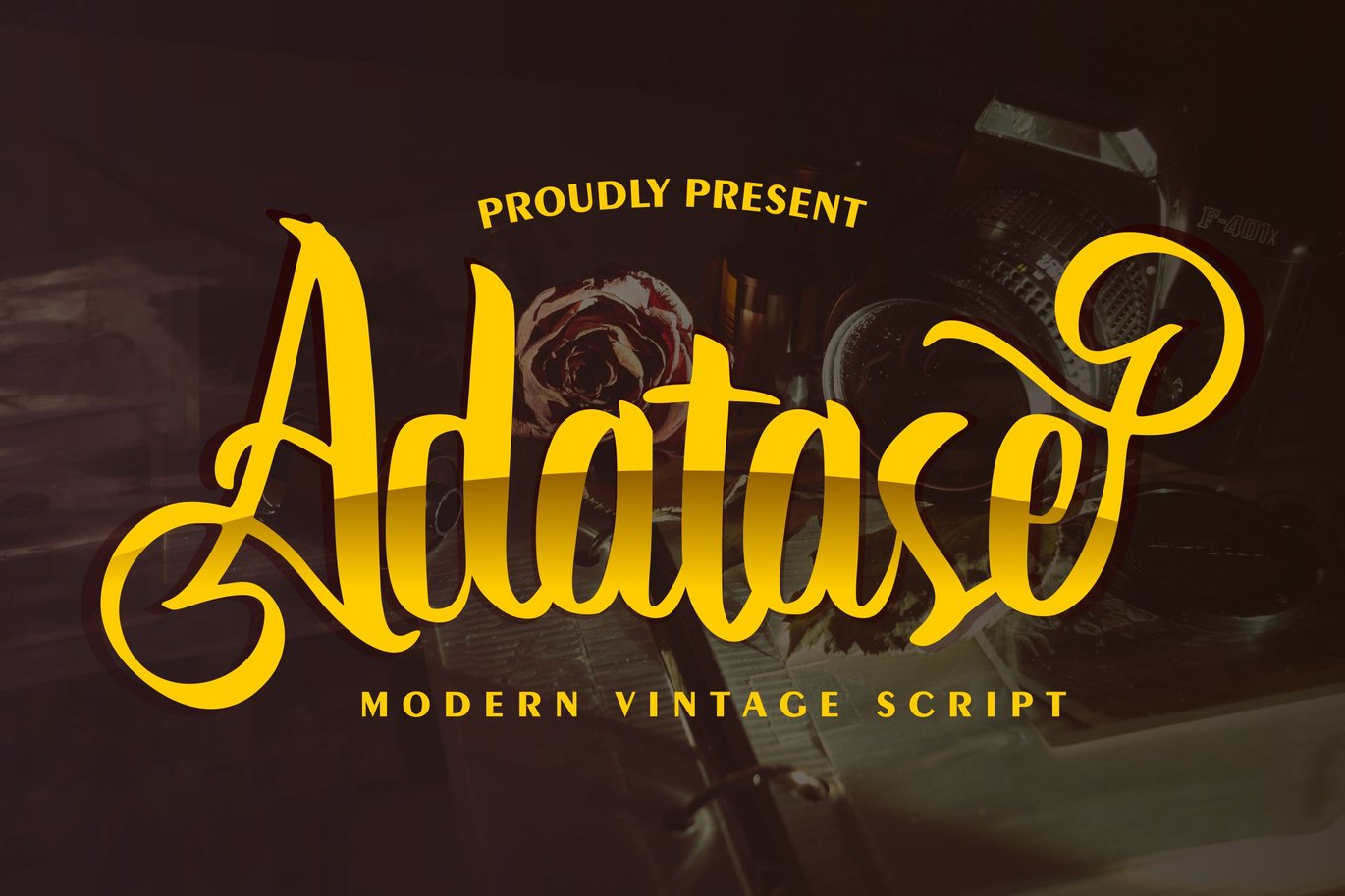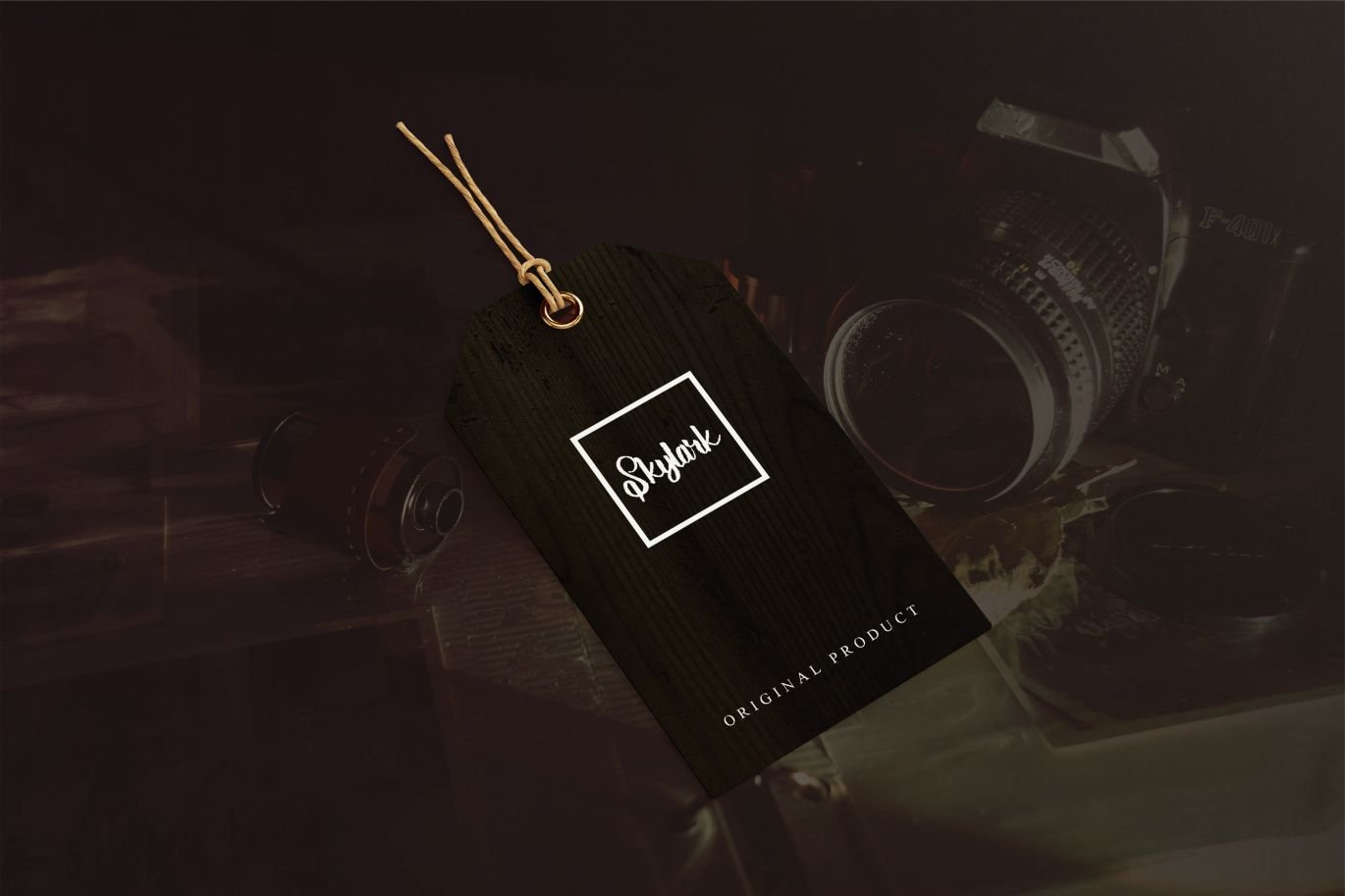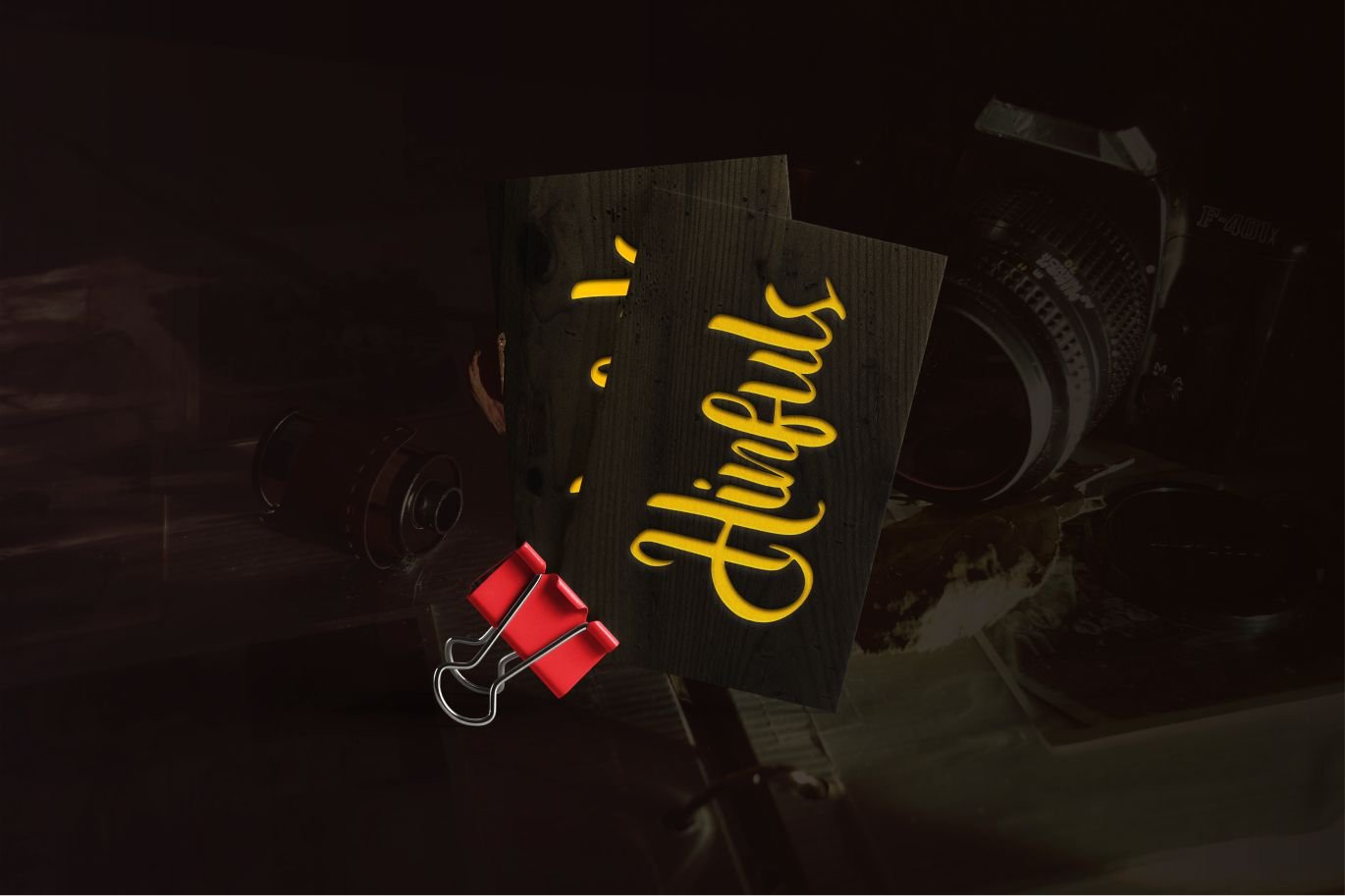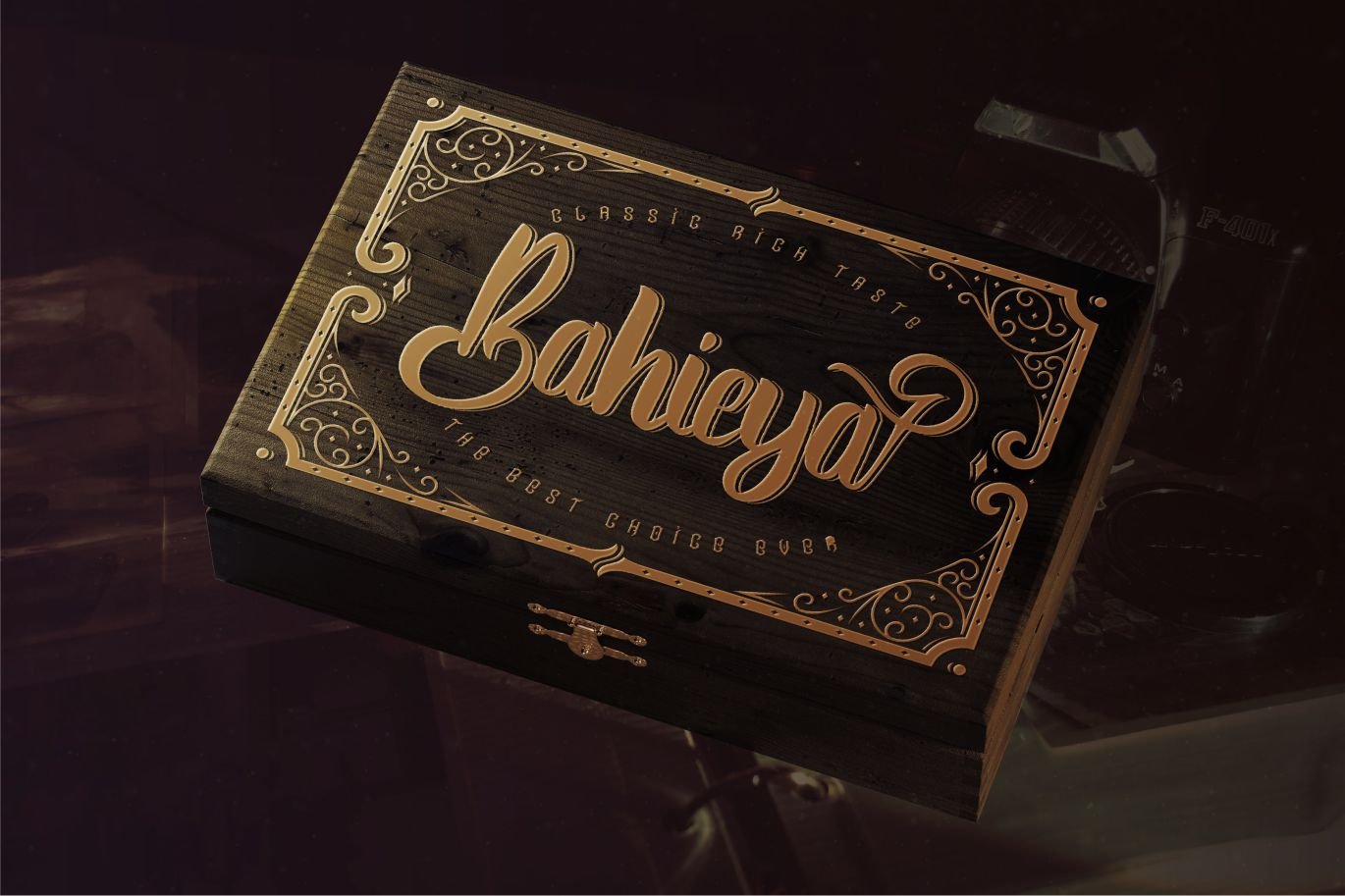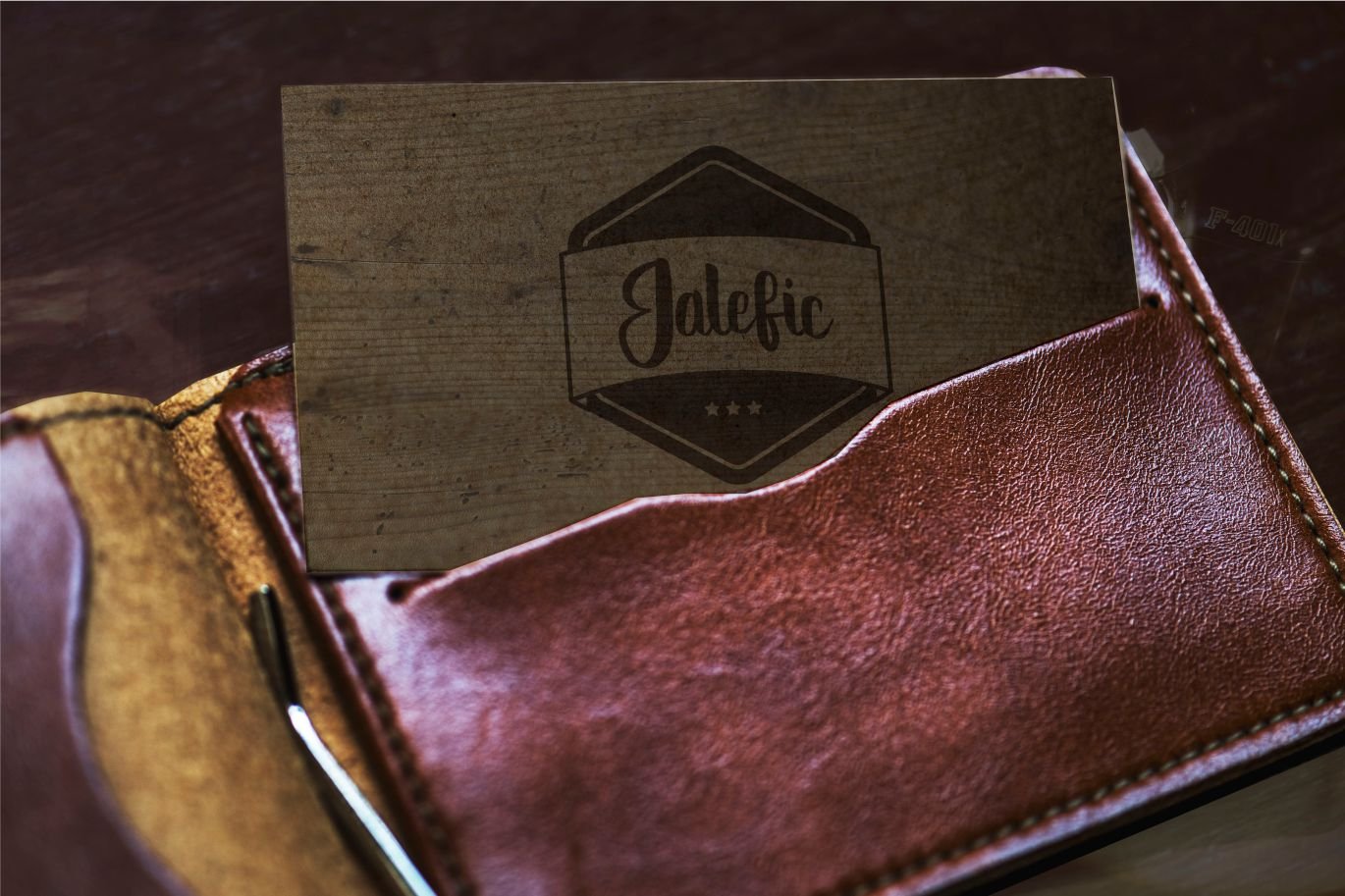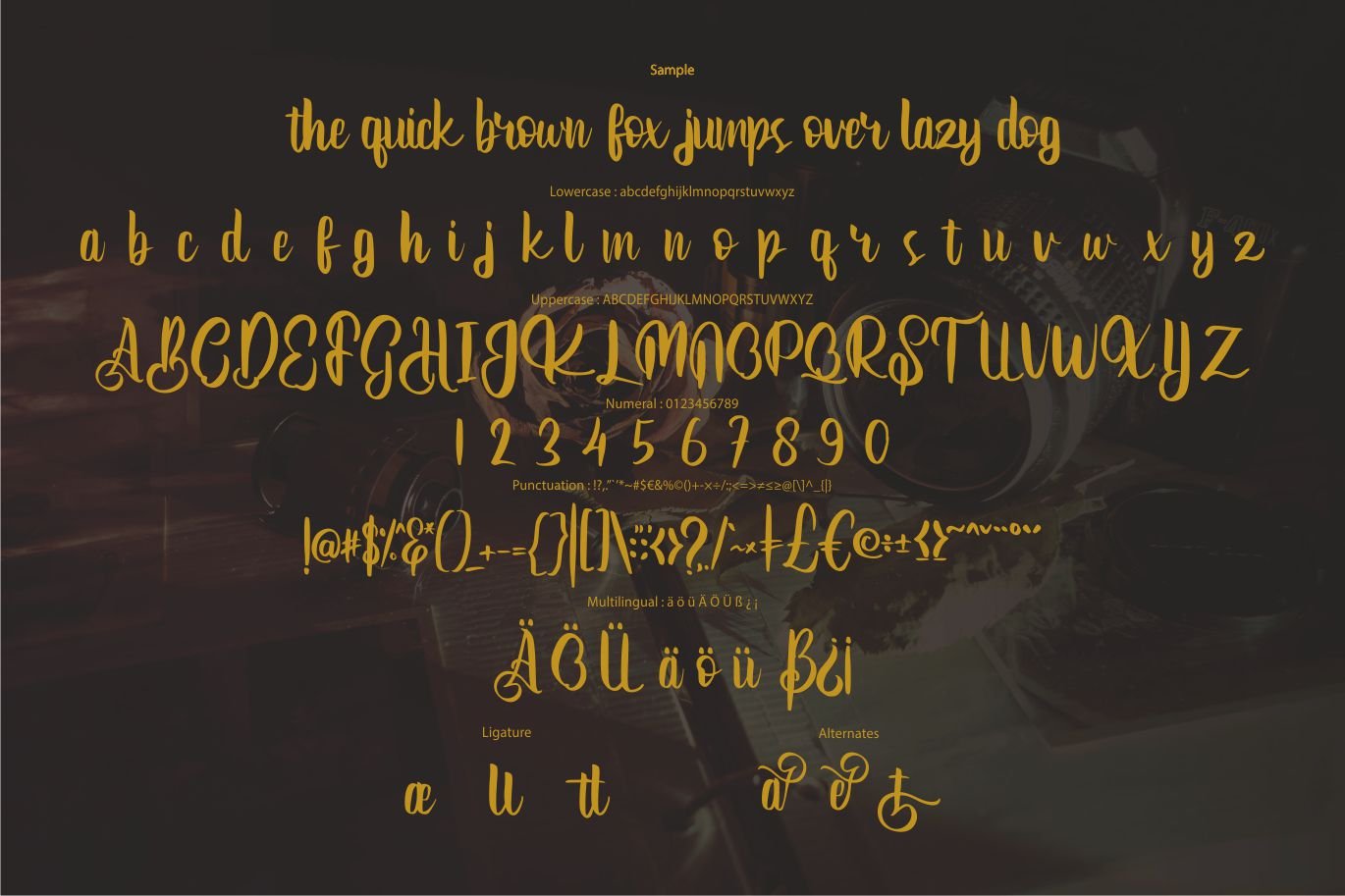
Adatase | Modern Vintage Script Font
Adatase | Modern Vintage Script Font with a calligraphy style, So beautiful on invitation like greeting cards, branding materials, business cards, quotes, posters, and more!